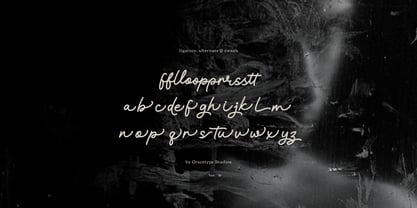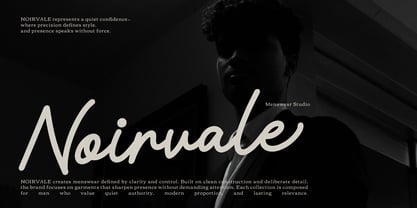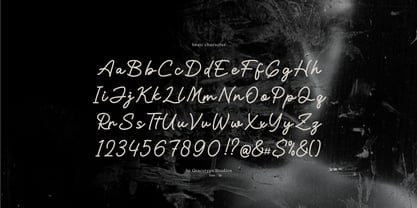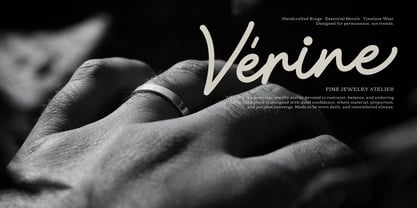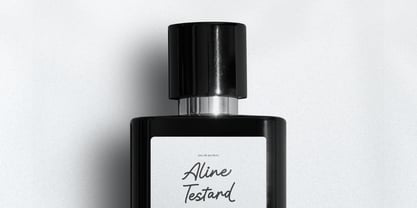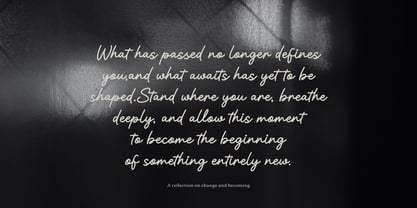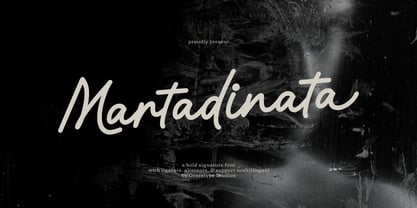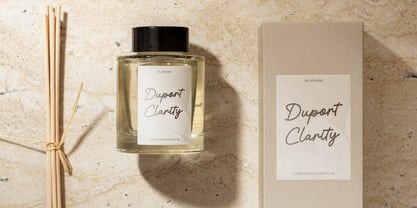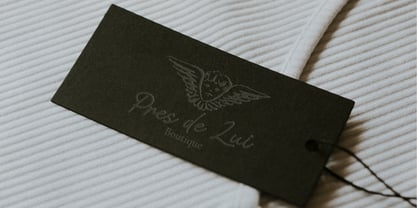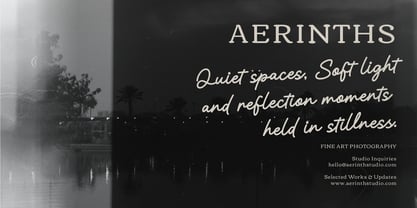
Martadinata
Martadinata | Bold Signature Font, from Gracetypestudio, suitable for any projects such as: logos, branding projects, homeware designs, product packaging, mugs, quotes, posters, shopping bags, t-shirts, book covers, name card, invitation cards, greeting cards, label, photography, watermark, special events, and all your other lovely projects that need a Script taste.